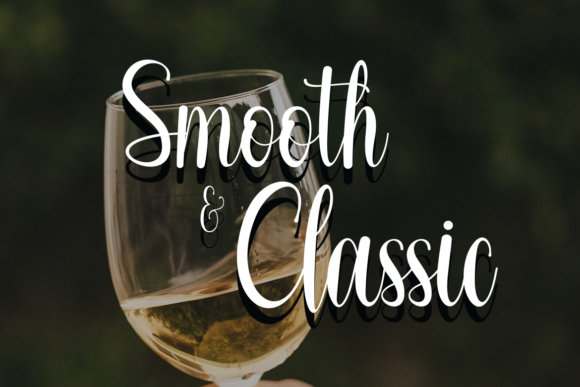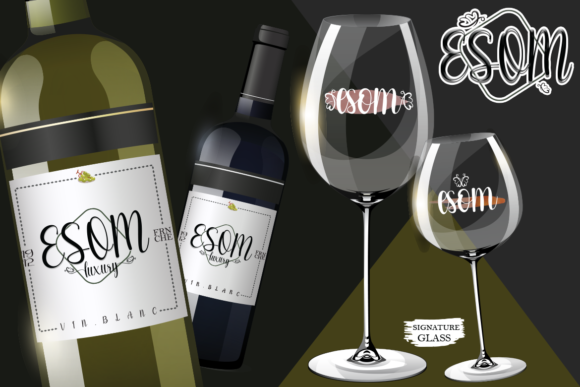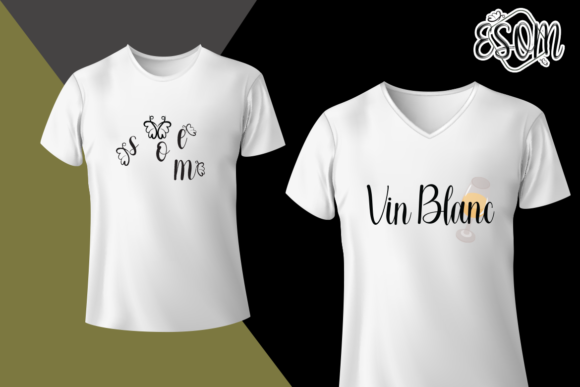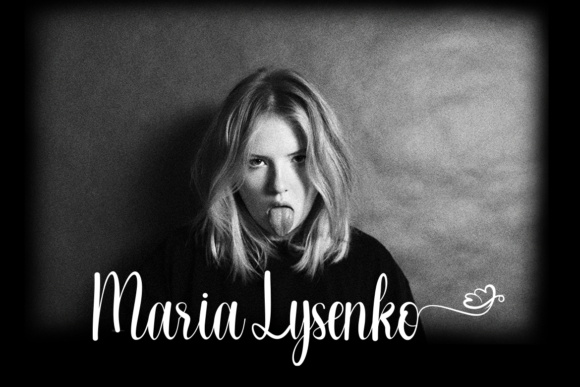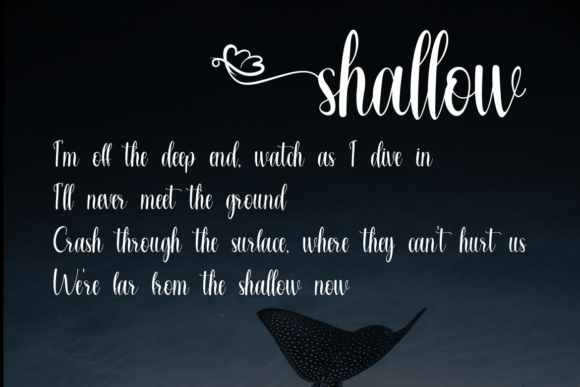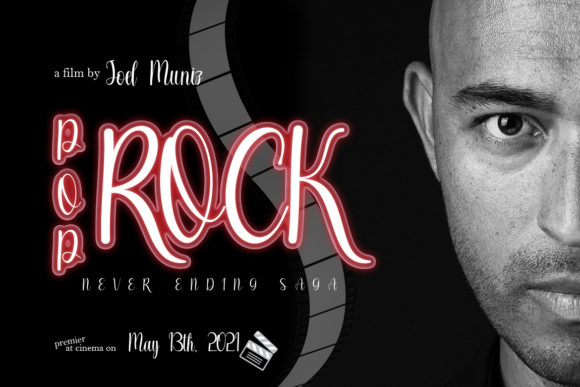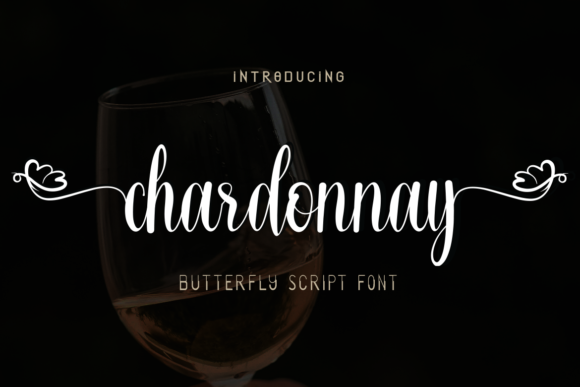
Introducing Chardonnay Font: A Whimsical Handwritten Delight
Are you a designer or crafter looking for a font that adds a touch of elegance and whimsy to your projects? Look no further than Chardonnay Font, a lovely handwritten font that is sure to captivate your audience. With its delicate and elegant features, Chardonnay Font is the perfect addition to any design or craft project.
What Makes Chardonnay Font Special?
Chardonnay Font is a PUA encoded font, which means that accessing all of the glyphs and swashes is a breeze. This font features delicate butterflies at the end of each character, adding a playful and whimsical touch to your designs. The elegant and delicate nature of Chardonnay Font makes it perfect for a variety of projects, from wedding invitations and stationery to branding and packaging.
Key Features of Chardonnay Font
- PUA Encoded: Easy access to all glyphs and swashes
- Elegant and Delicate: Perfect for designs that require a touch of sophistication
- Whimsical: Features delicate butterflies at the end of each character
- Handwritten: Adds a personal and human touch to your designs
Uses for Chardonnay Font
Chardonnay Font is versatile and can be used for a variety of projects, including:
- Wedding Invitations: Add a touch of elegance and whimsy to your wedding invitations and stationery
- Branding and Packaging: Use Chardonnay Font to create unique and eye-catching branding and packaging
- Signs and Banners: Add a personal touch to your signs and banners with Chardonnay Font
- Digital Designs: Use Chardonnay Font in your digital designs, such as social media graphics and blog posts
Tips for Using Chardonnay Font
Here are a few tips for using Chardonnay Font in your designs:
- Pair with Other Fonts: Chardonnay Font pairs well with other elegant and delicate fonts
- Use for Headings: Chardonnay Font is perfect for headings and titles
- Experiment with Colors: Chardonnay Font looks great in a variety of colors, from soft pastels to bold and bright hues
Chardonnay Font is a lovely and whimsical handwritten font that is sure to add a touch of elegance and sophistication to your designs. With its delicate features and PUA encoding, Chardonnay Font is the perfect addition to any design or craft project. Whether you’re a designer or crafter, Chardonnay Font is a must-have font that is sure to inspire your creativity.